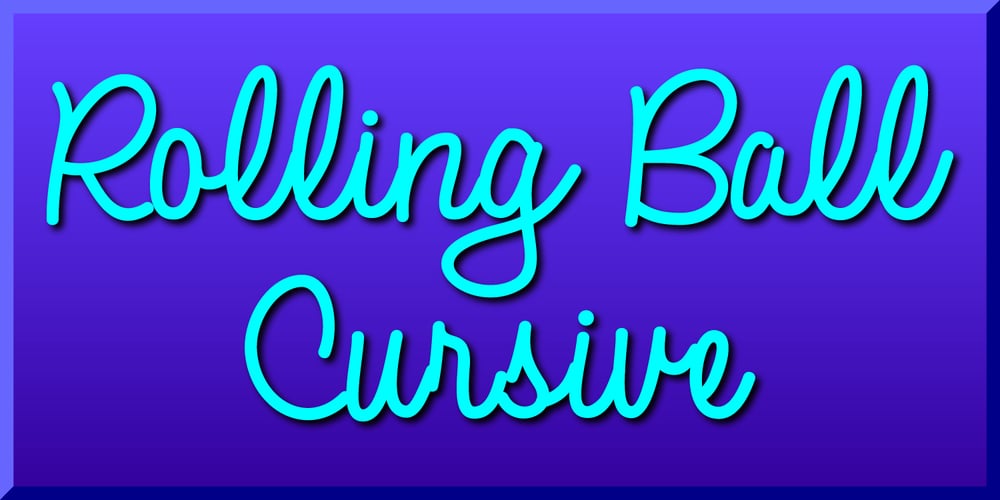
Rolling Ball Cursive Font Family was designed by Gerald Gallo and published by Gerald Gallo. Rolling Ball Cursive contains 1 styles and family package options. Rolling Ball Cursive simulates a handwritten style executed with one of the many types of rolling ball pens now available.